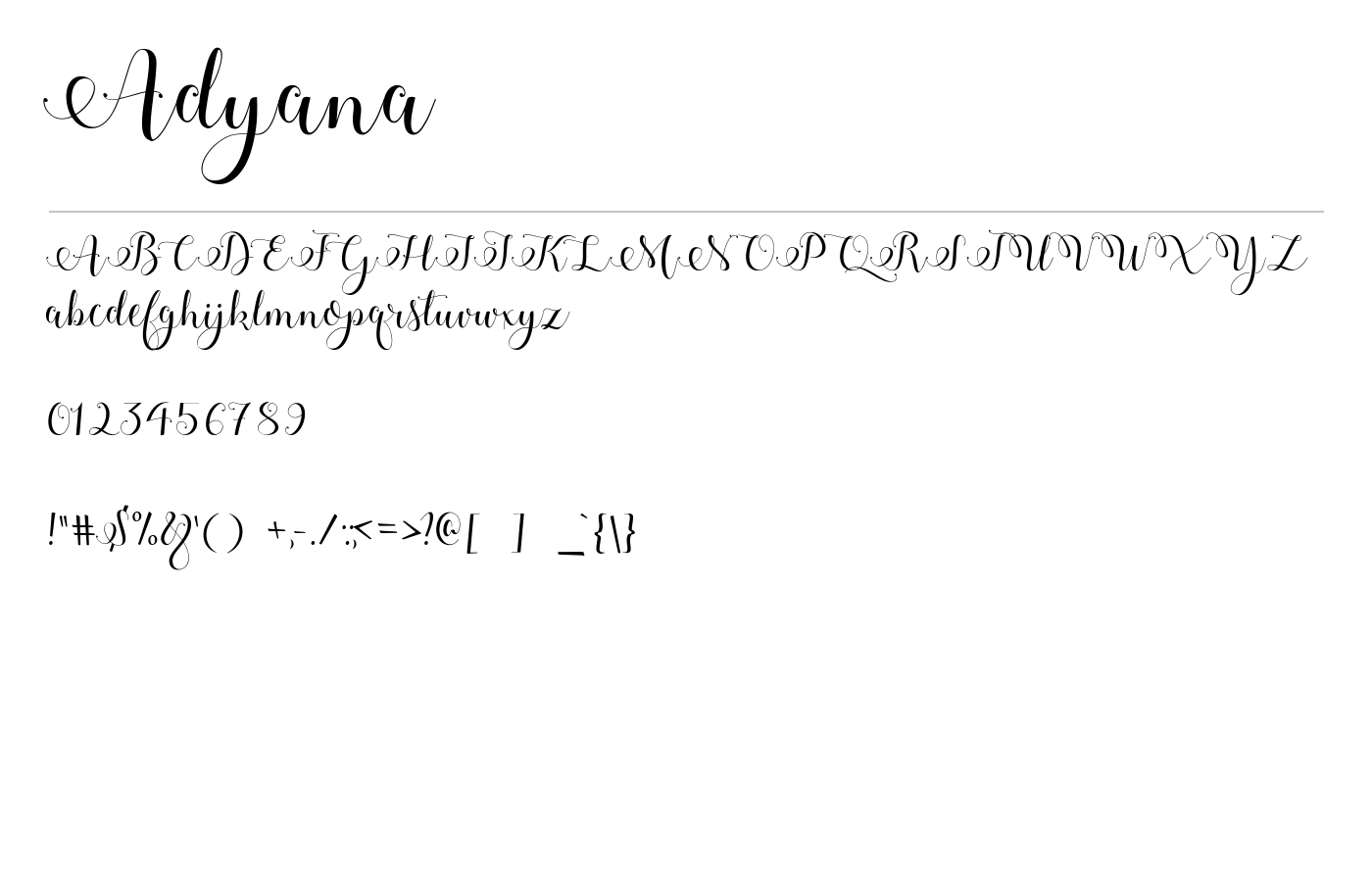
Adyana is an elegant script font characterized by its delicate, flowing strokes and graceful swashes that give it a refined and sophisticated appeal. Perfect for wedding invitations, luxury branding, and feminine editorial designs, it adds a romantic and artistic touch, making any project feel special and stylish.
Adyana Font
About Adyana Font
| Font family | Adyana Font |
| Designer | Acitya Creative |